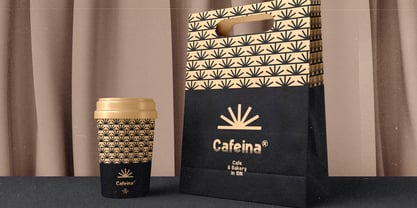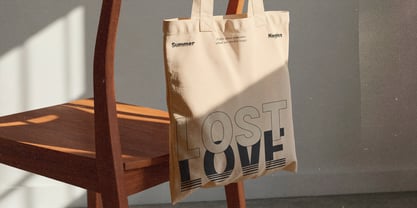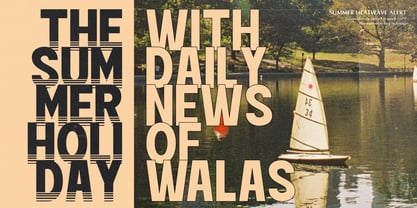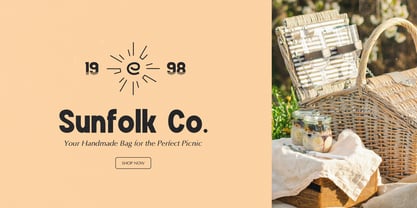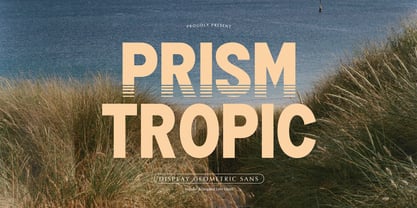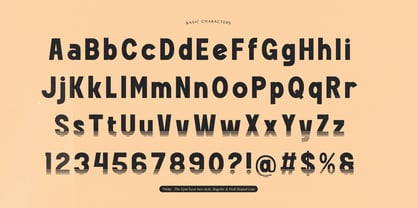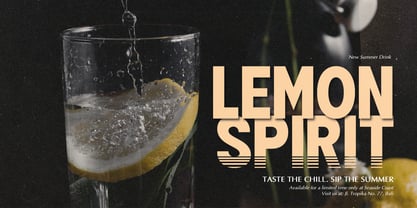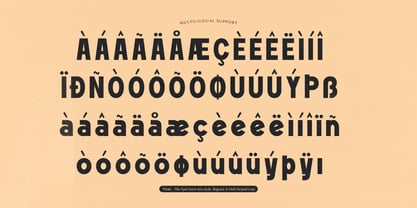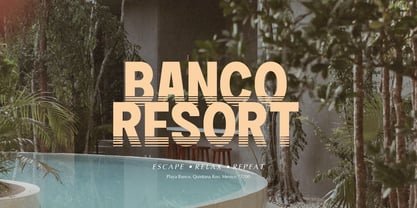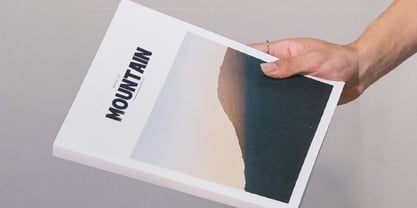
Prism Tropic
by Tini Fitriani
The Prism Tropic Font Family was designed by and published by Tini Fitriani. Prism Tropic contains 1 styles. More about this family
Prism Tropic | Display Geometric Sans, from Gracetypestudio, suitable for any projects such as: logos, branding projects, homeware designs, product packaging, mugs, quotes, posters, shopping bags, t-shirts, book covers, name card, invitation cards, greeting cards, label, photography, watermark, special events, and all your other lovely projects that need a Display Geometric Sans taste.
• Regular and Italic
• Alternate and Ligature